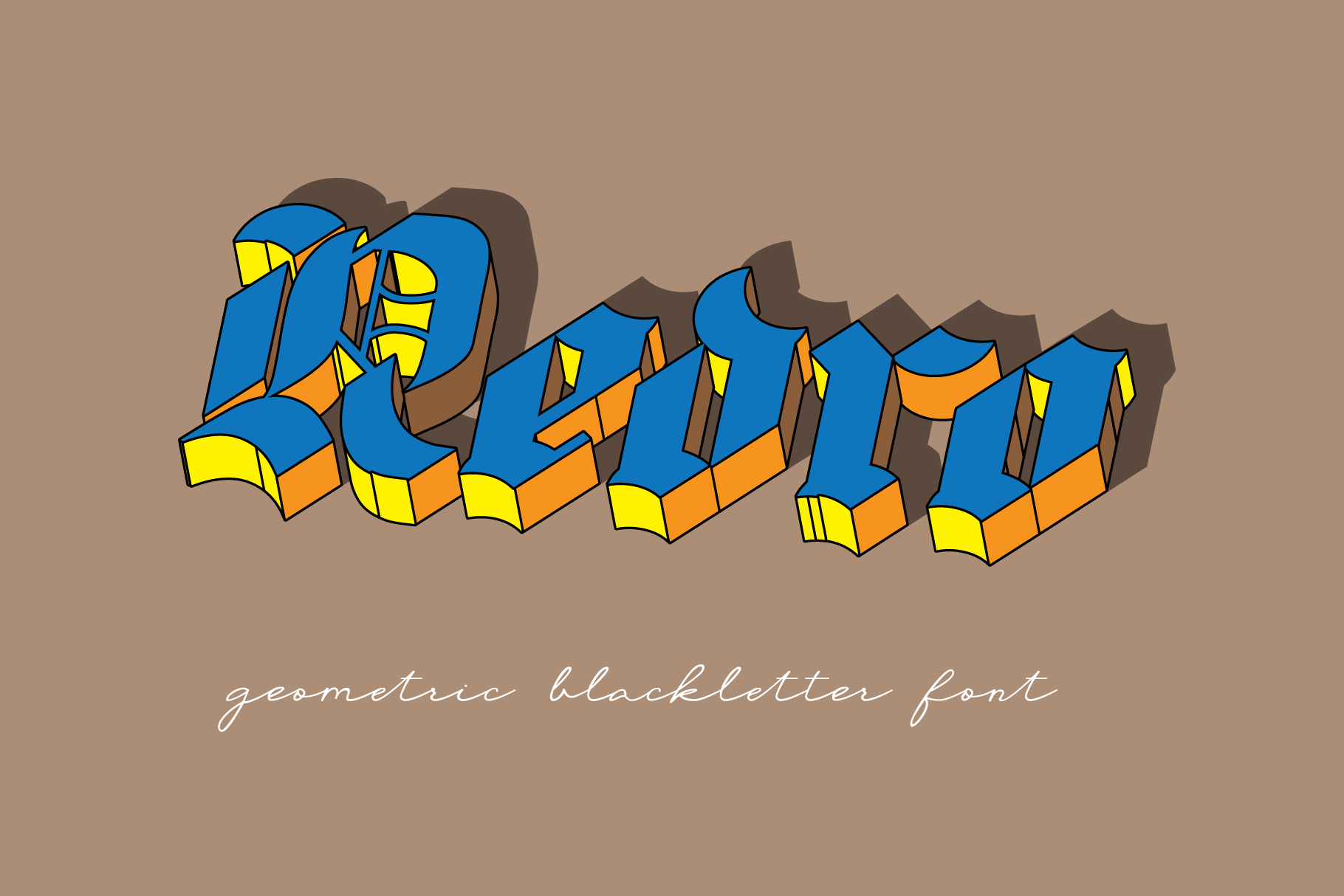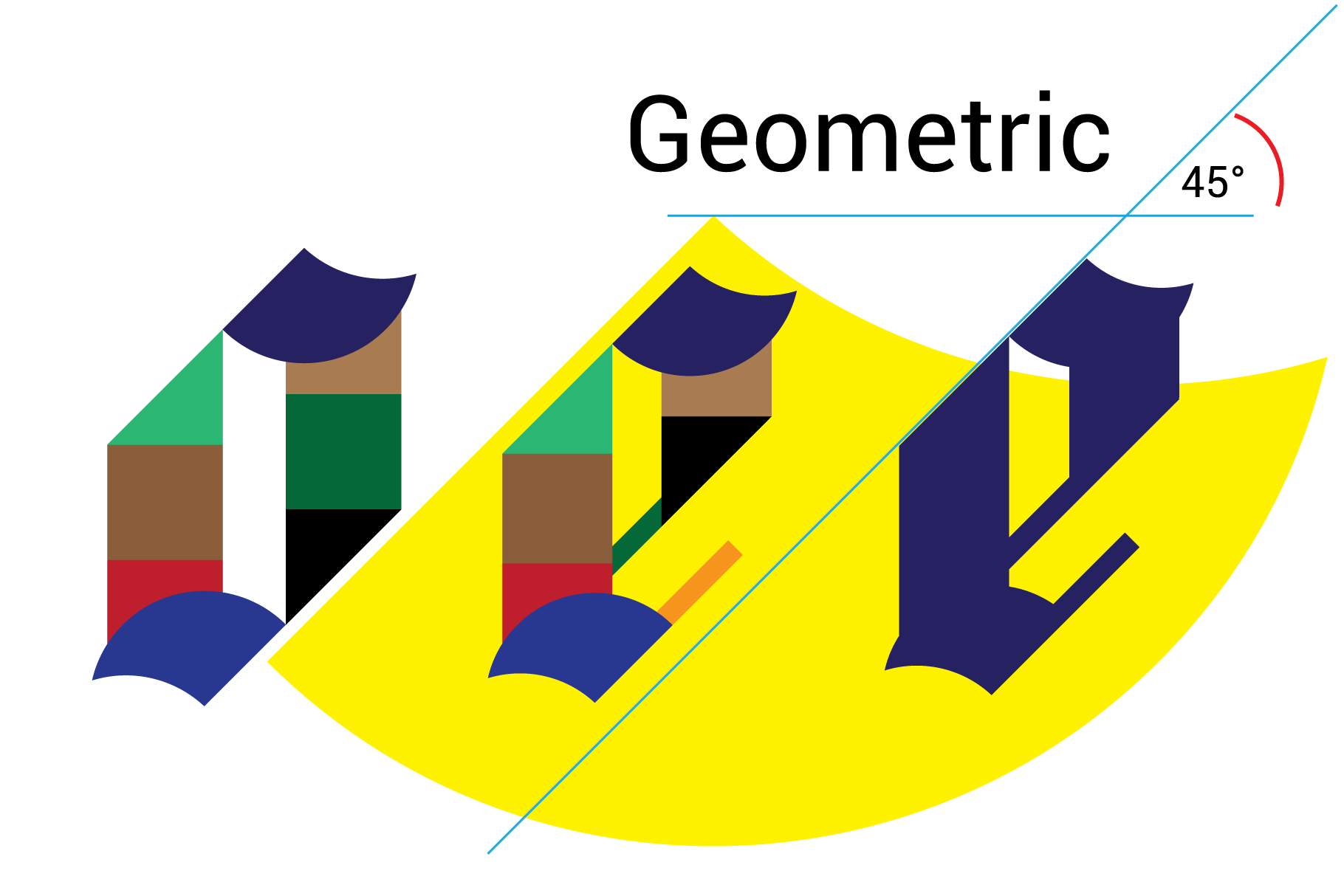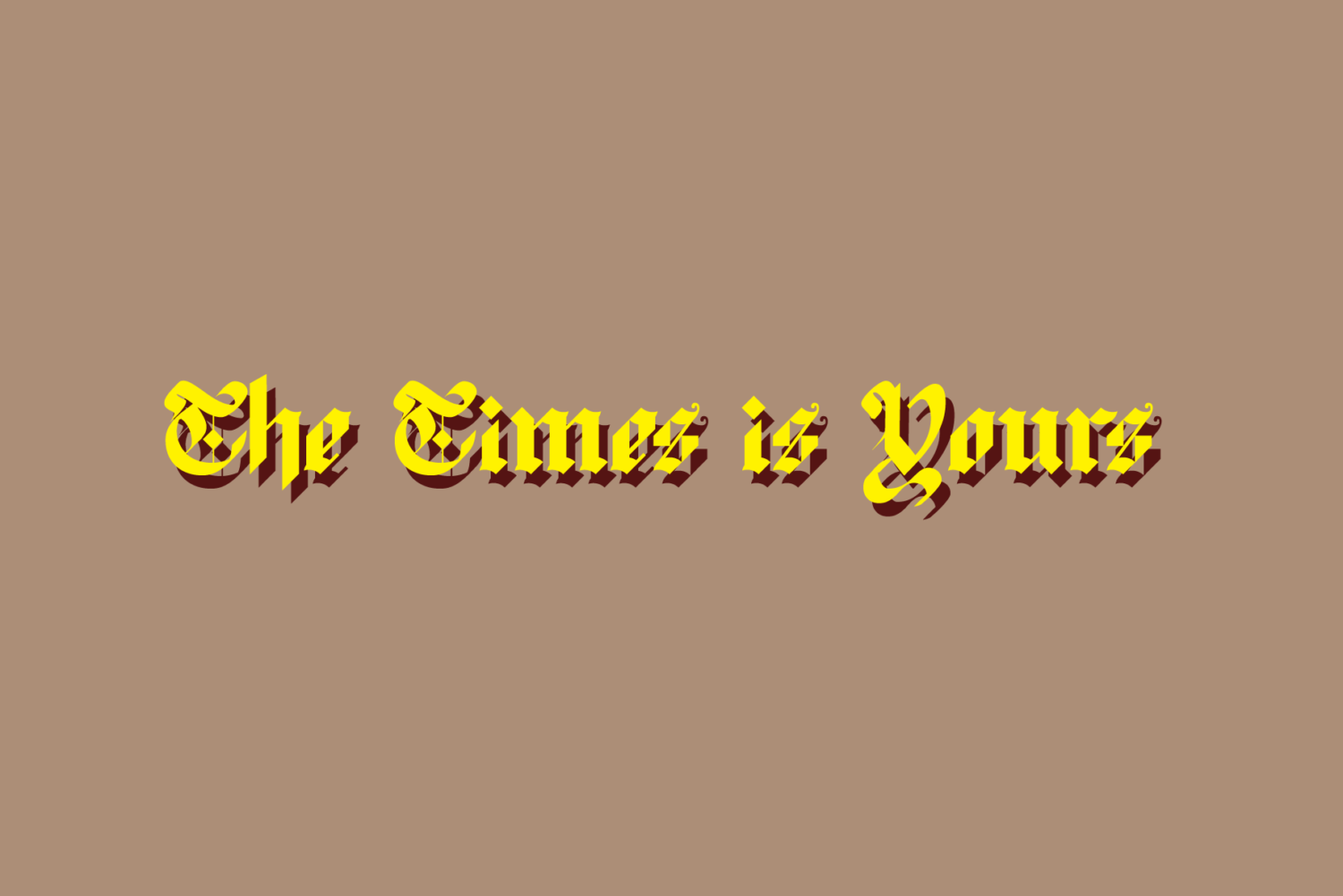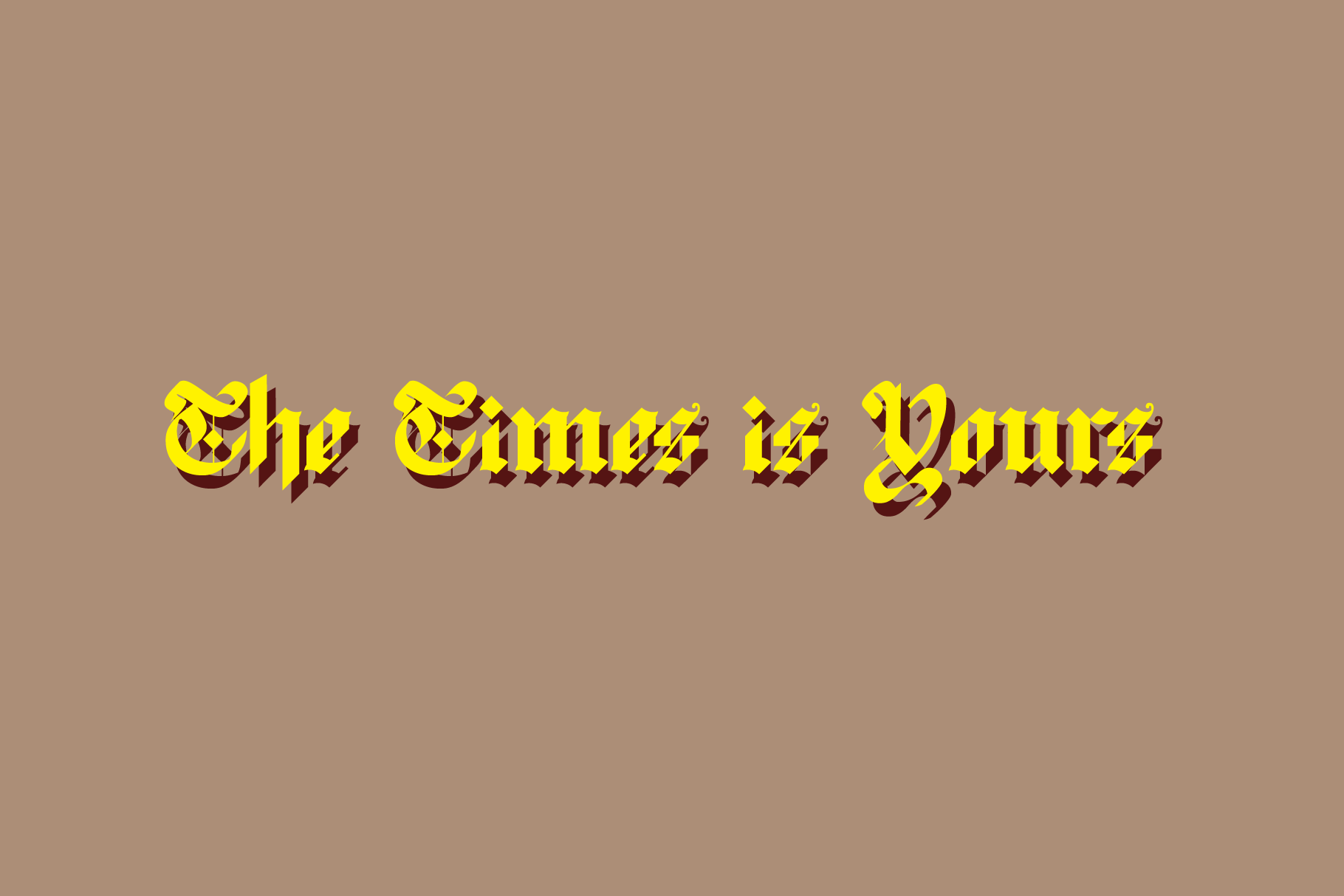
Redro Free Font
Redro Free Font is a simple geometrical and clean blackletter font inspired by classic Blackletter, old English, or gothic text. This style of the script was used for European languages at the beginning of the 12th century. This kind of design is now mostly used for decorative purposes, for example, to evoke an old word classical feel. But it can also be used to evoke a heavy metal feeling. This free typeface was designed by talented Sigit Nur Wicaksono. If you like it don’t forget to check out the full version.